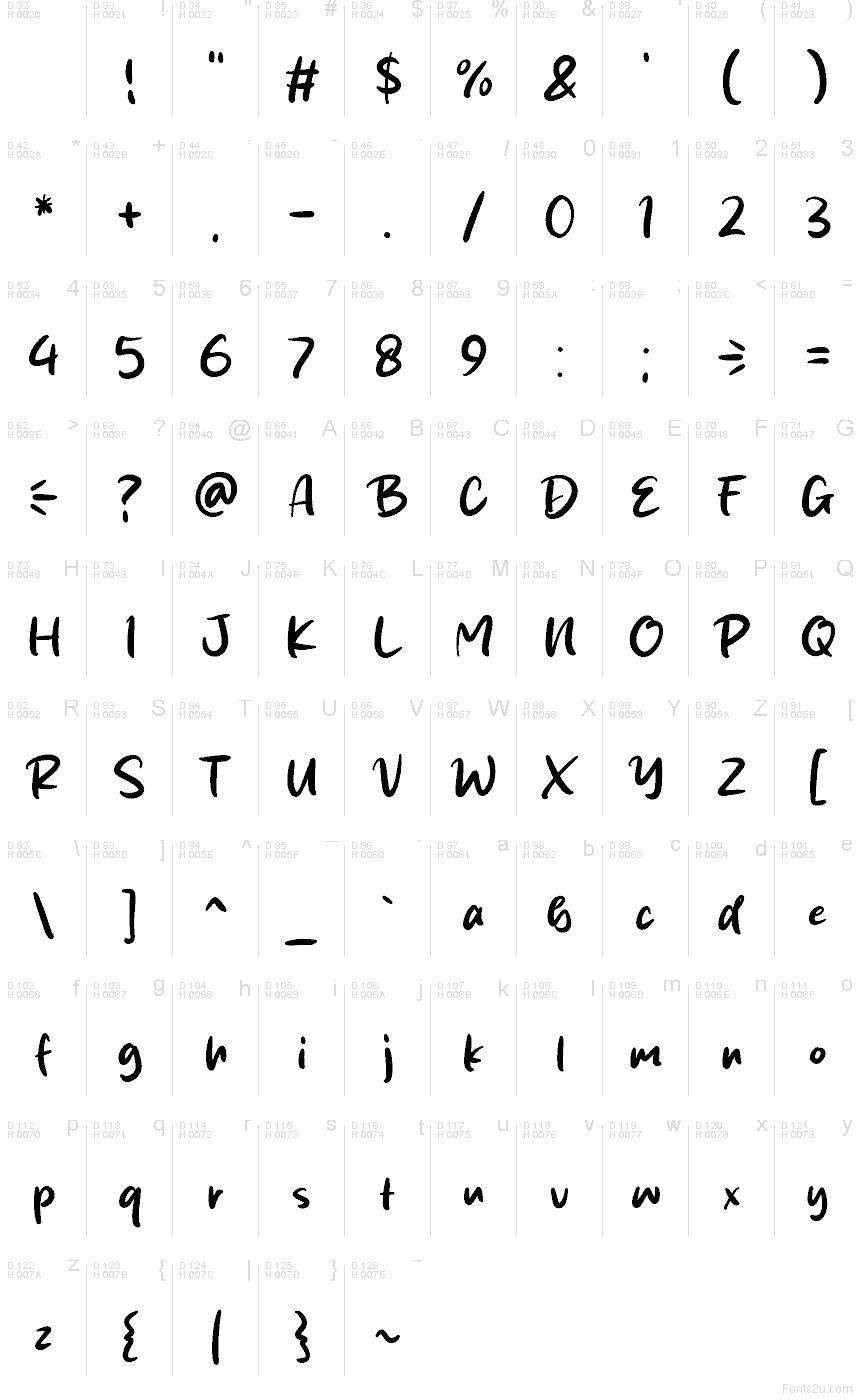
Diary Story by Origin Type is a free brush script with the easy, personal feel of a quick journal title. The letters sweep in with broad painted strokes, rounded turns, and a few sharp flicks that keep it lively rather than polished.
It fits branding for handmade goods, cafe menus, book covers, poster headlines, and social posts where a warm handwritten note matters more than strict formality. As a free font, it also works well for short title cards or name treatments, since those bold brush curves and lifted endings give even a brief word a casual, written-in-the-moment rhythm.